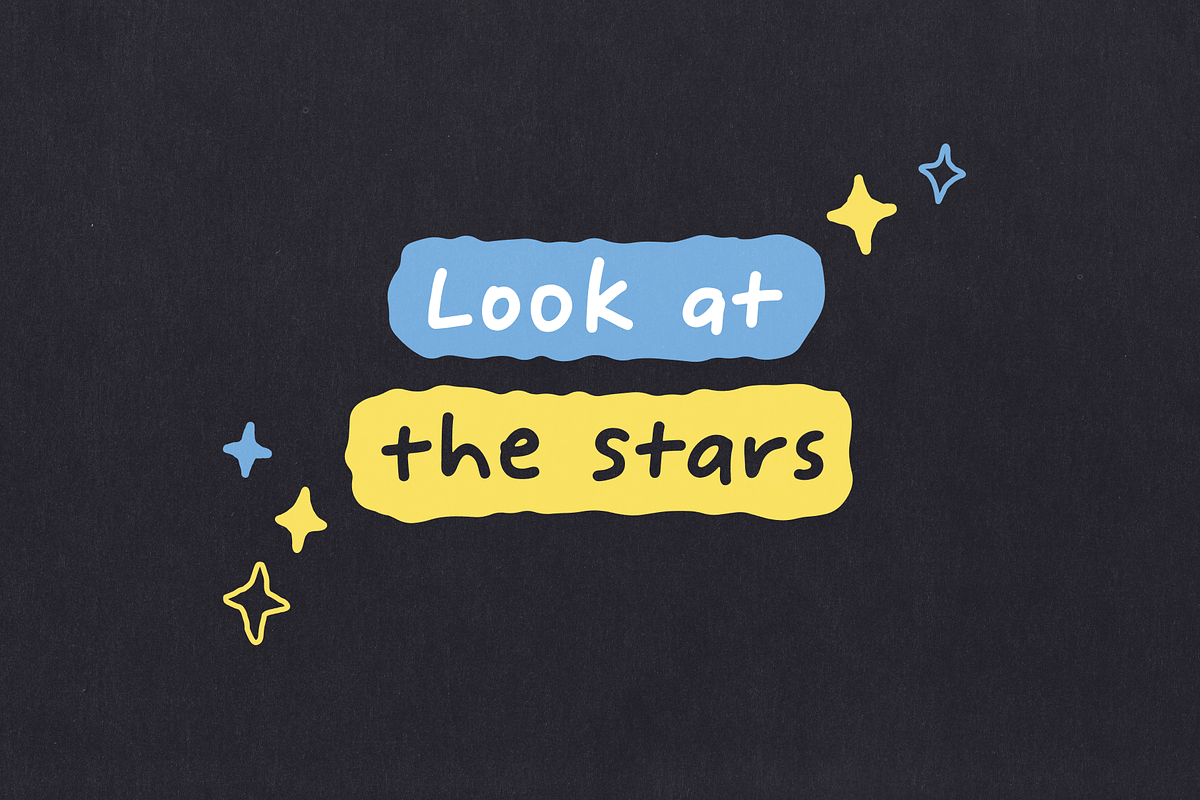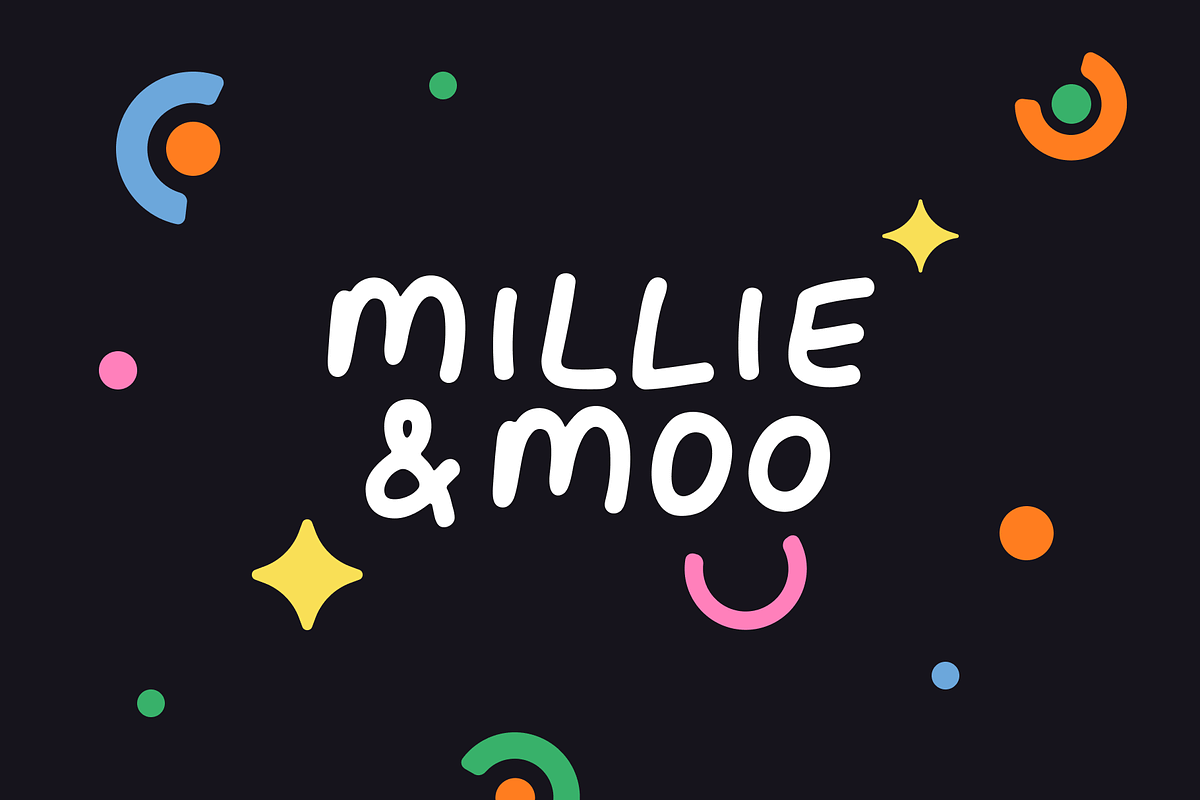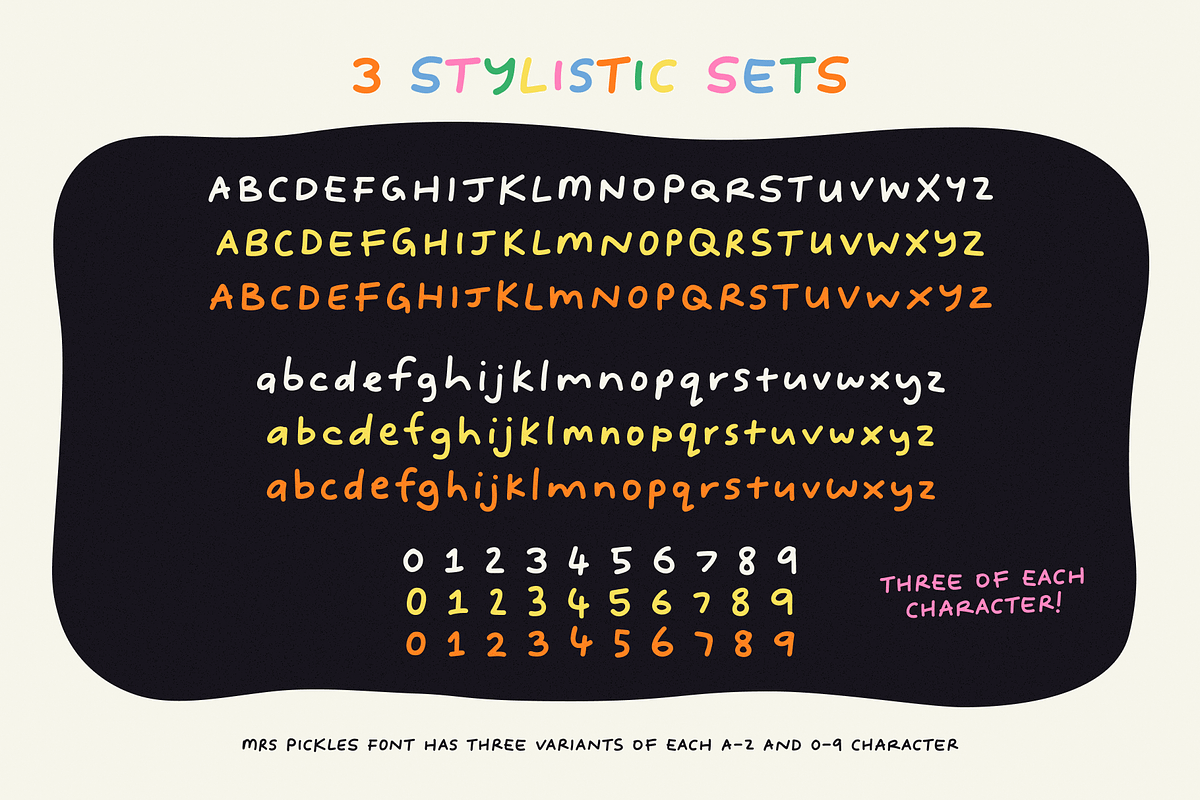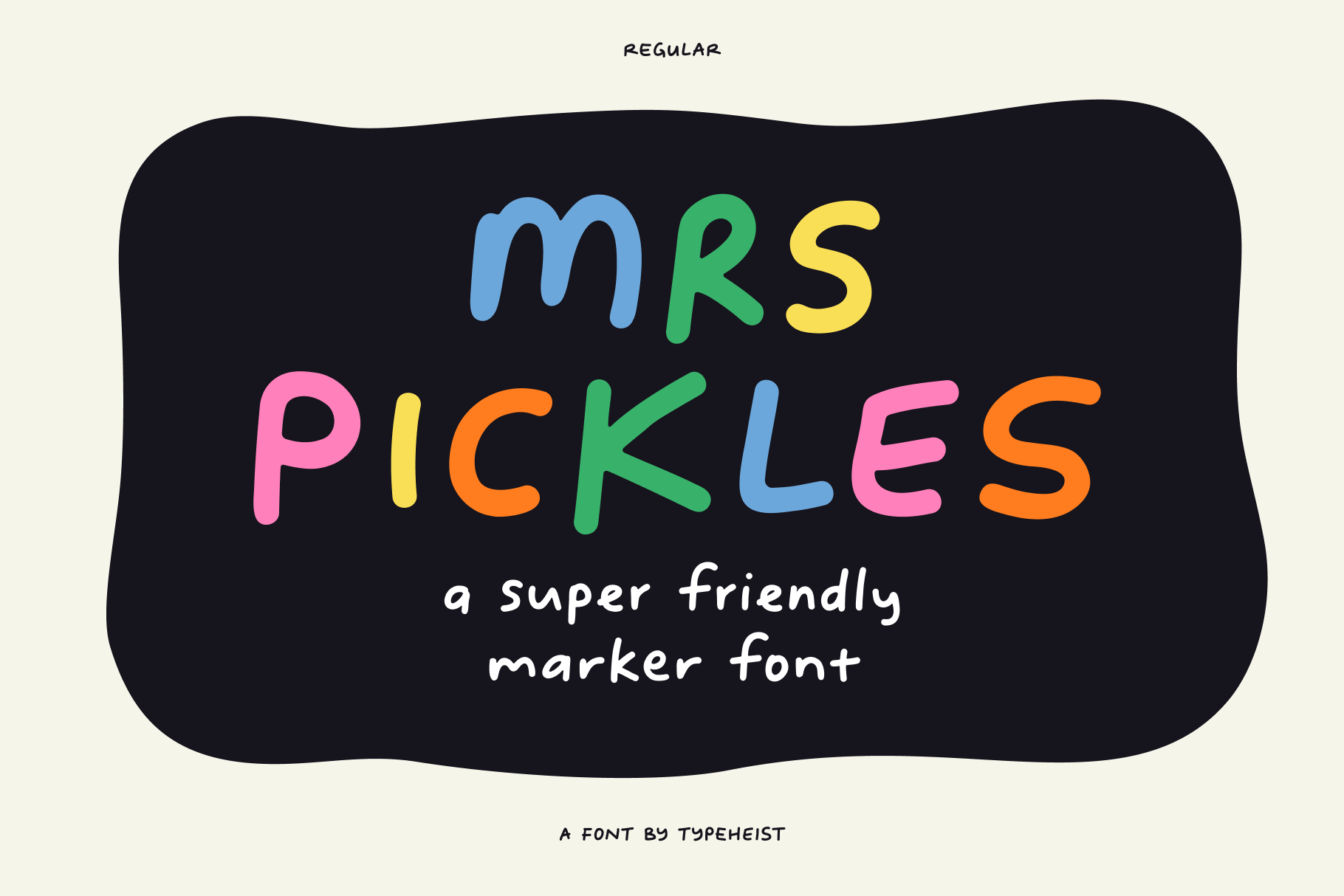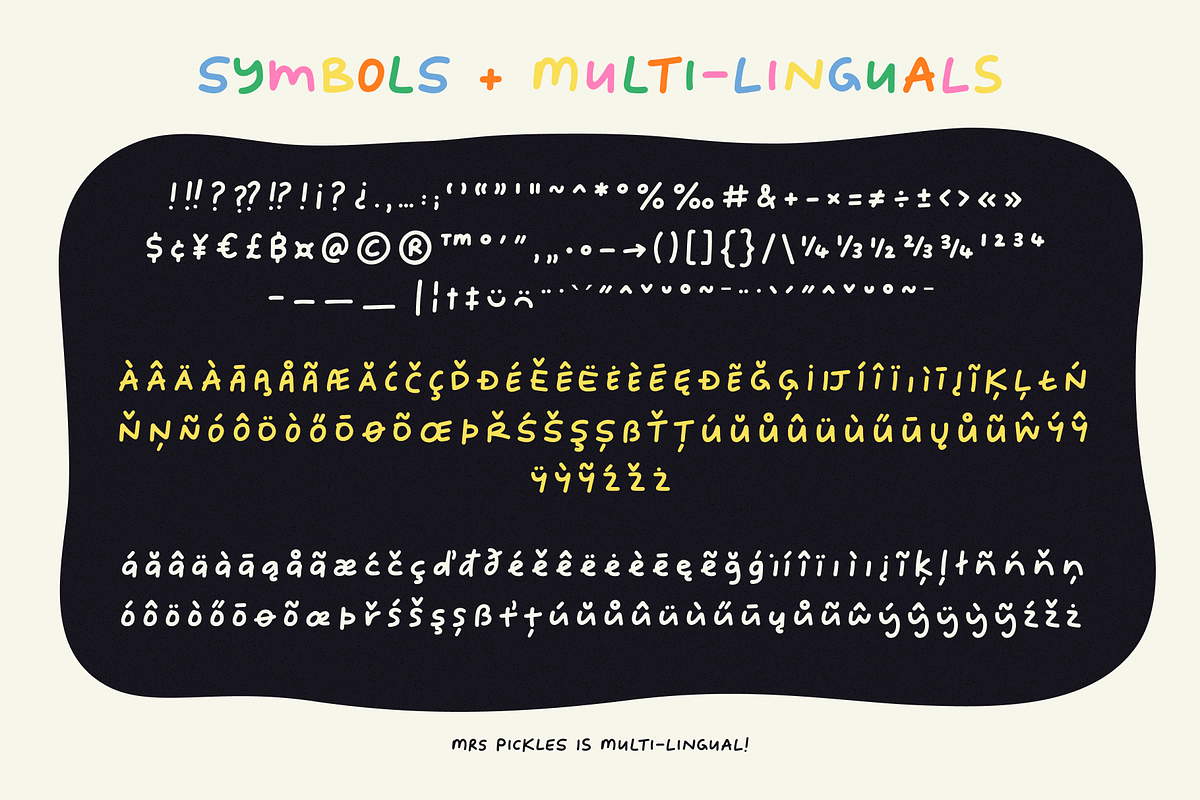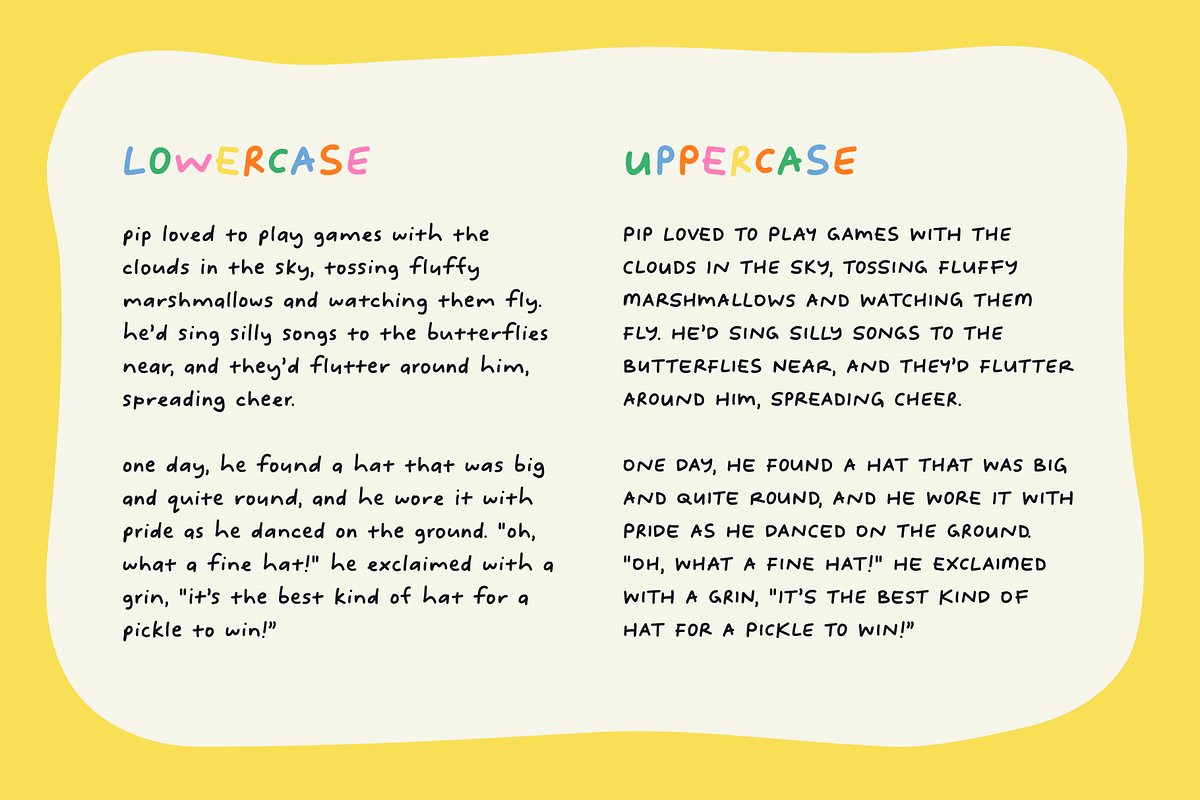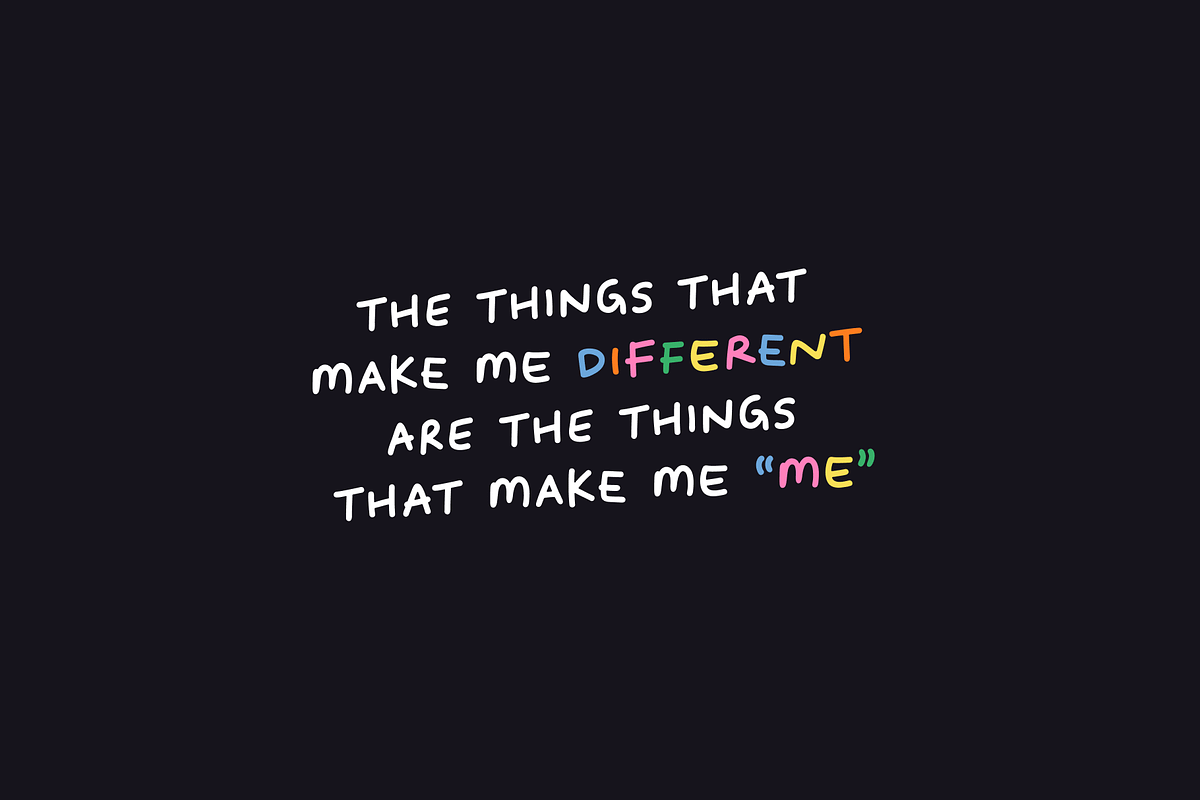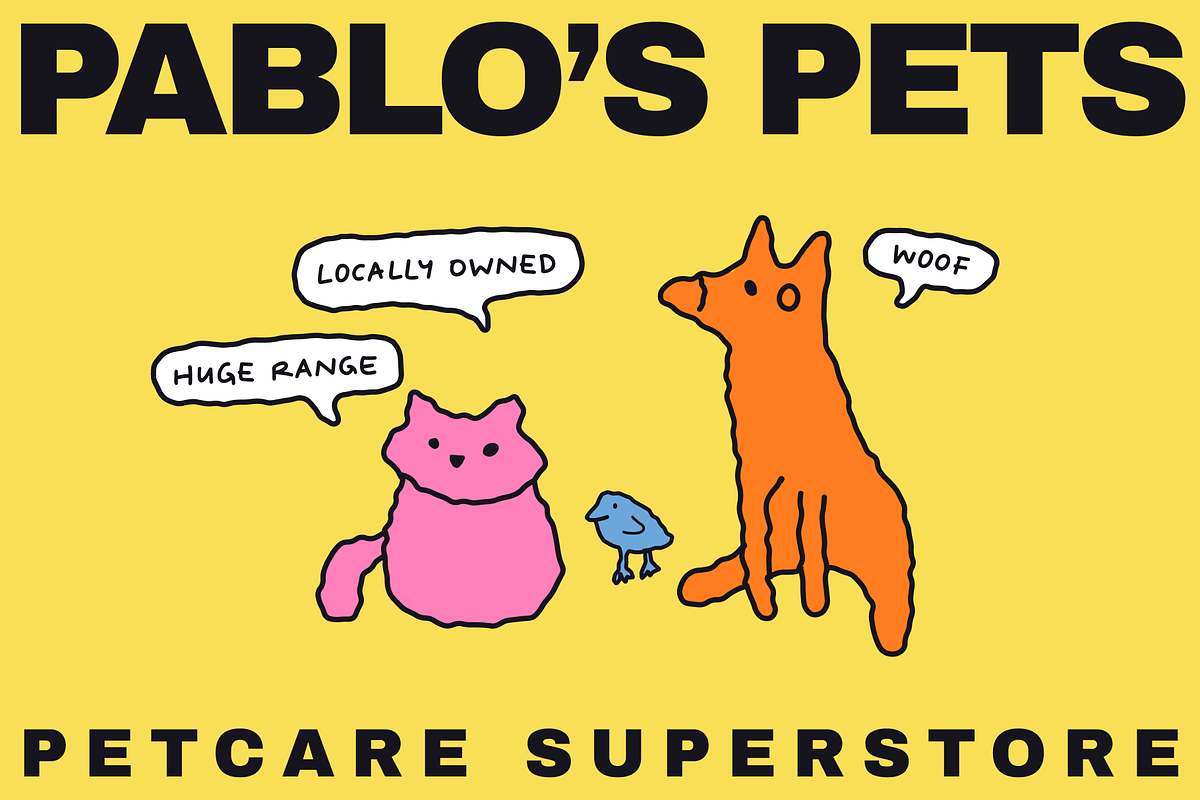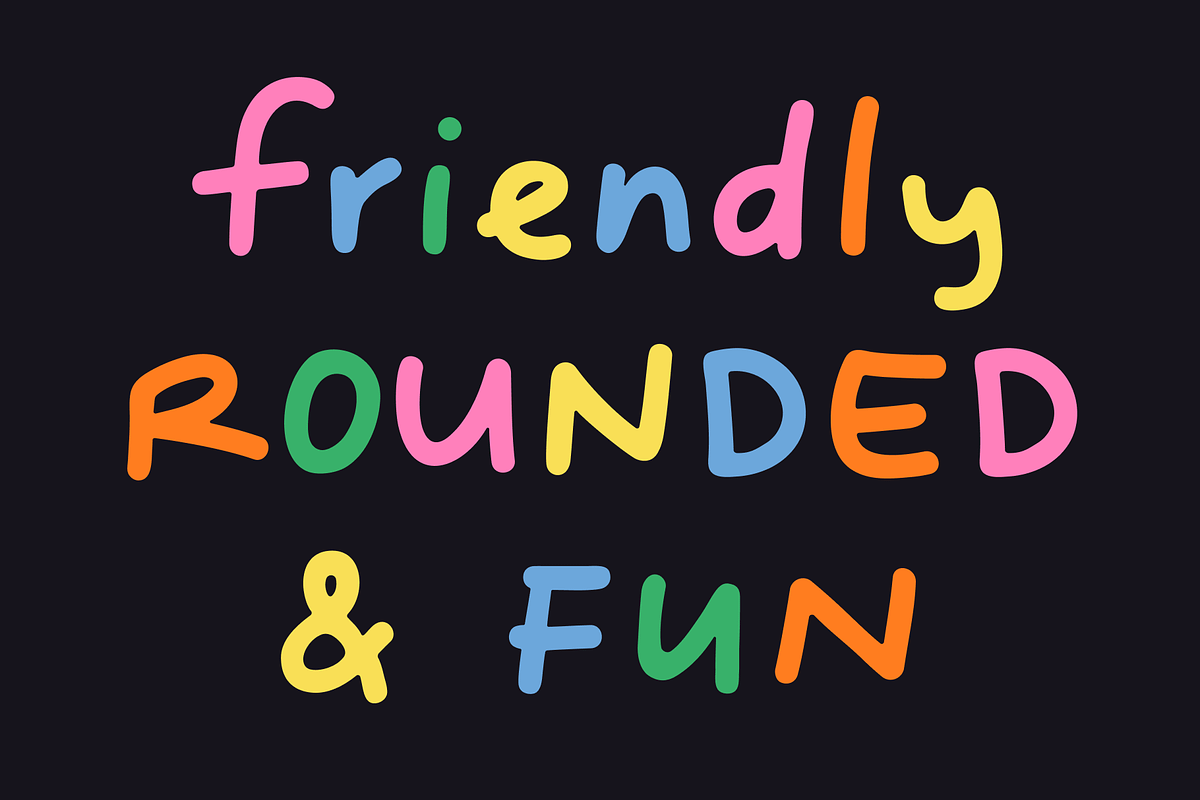
Mrs Pickles friendly marker font
Meet Mrs Pickles
A friendly marker font that makes you feel good inside.
With rounded edges and playful charm, Mrs Pickles brings a hand-drawn warmth to any design. She's approachable, full of character and just the right amount of quirky. Whether you’re building a kids’ brand, sharing feel-good quotes or adding personality to packaging, Mrs Pickles is here to help things feel a little more fun.
Additional to three unique character sets for A-Z, a-z and 0-9, it also includes multi-lingual support so your message stays cheerful in your language.
Playful brand identities,
Cute packaging,
Fun quotes & social posts,
Pet stores,
Kids products,
or anything that needs a little joy ✨
Soft. Cheerful. Effortlessly likeable.
With honest curves and a friendly style, Mrs Pickles feels right at home wherever warmth and whimsy are welcome.
It’s your go-to font for feel-good design… because sometimes, fonts should make you smile.
- 3 unique character sets with characters A-Z, a-z and 0-9
- Multi-lingual accented characters (Latin-1)